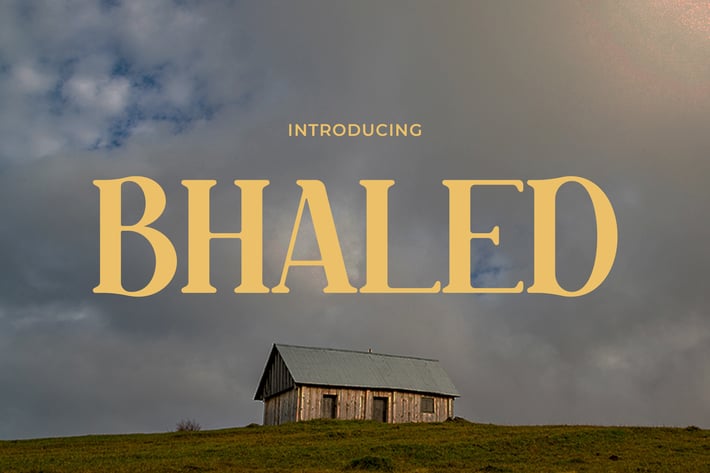
Bhaled - Retro Spirit with a Elegant Modern Font
BHALED -
BHALED is a long-tail serif display typeface combining vintage energy with modern clarity and refined proportions. Its slightly flared serifs and medium contrast strokes create a design that feels authentic, editorial, and quietly powerful. The visual texture blends rustic nostalgia with structured confidence.
With a vibe that’s both classic and expressive, BHALED fits perfectly into branding for local boutiques, literary book covers, editorial projects, and slow-living themed packaging. The typeface is easy to read while delivering a distinct voice, thanks to its slightly condensed forms and traditional letter anatomy.
Looking to craft a brand that feels grounded, warm, and memorable? BHALED is ideal for designers who want to strike a balance between editorial polish and human touch. From eco-friendly labels to travel-inspired stories, BHALED brings that countryside soul into contemporary spaces.
Its nostalgic vibe supports your storytelling in packaging design, social media posts, shop signage, or slow-fashion campaigns. Give your visuals a typographic tone that feels familiar, soulful, and beautifully real.
Key Features :
Classic serif structure with slightly flared terminals
Medium contrast and harmonious proportions for readability
Editorial tone for magazine spreads, books, and blogs
Brings handmade warmth to modern branding
Great for packaging, fashion, home & lifestyle visuals
Balanced elegance and rustic appeal
Let your design feel both timeless and grounded. BHALED is made for creators who seek clarity with charm—perfect for bringing emotion and legacy into modern design. Don’t miss out on adding soulful sophistication to your next big idea.